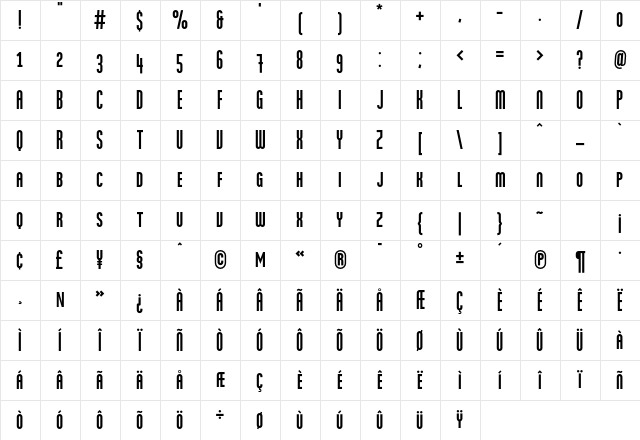
MartenGrotesqueCaps Regular
Design Context for MartenGrotesqueCaps
MartenGrotesqueCaps is a composed and adaptable typeface that performs quietly and consistently across a wide range of design contexts.